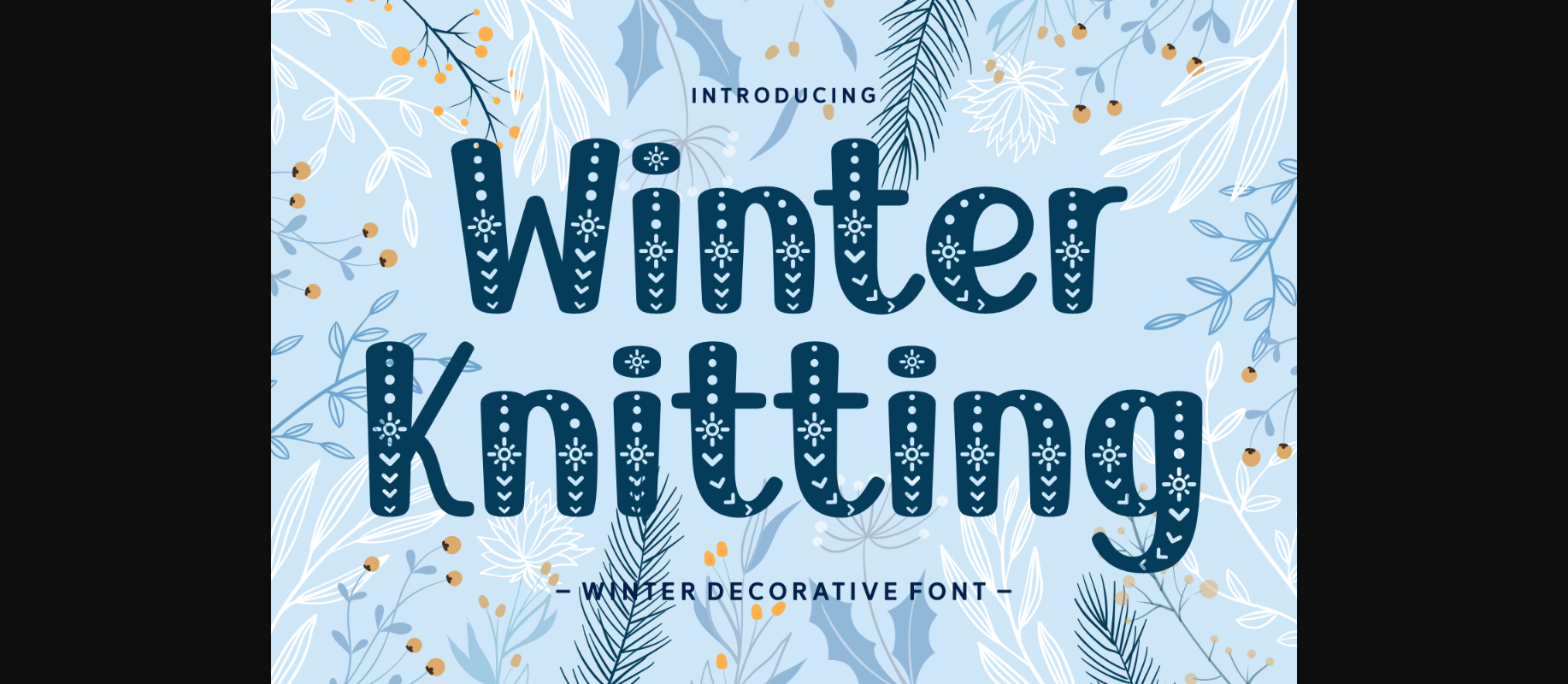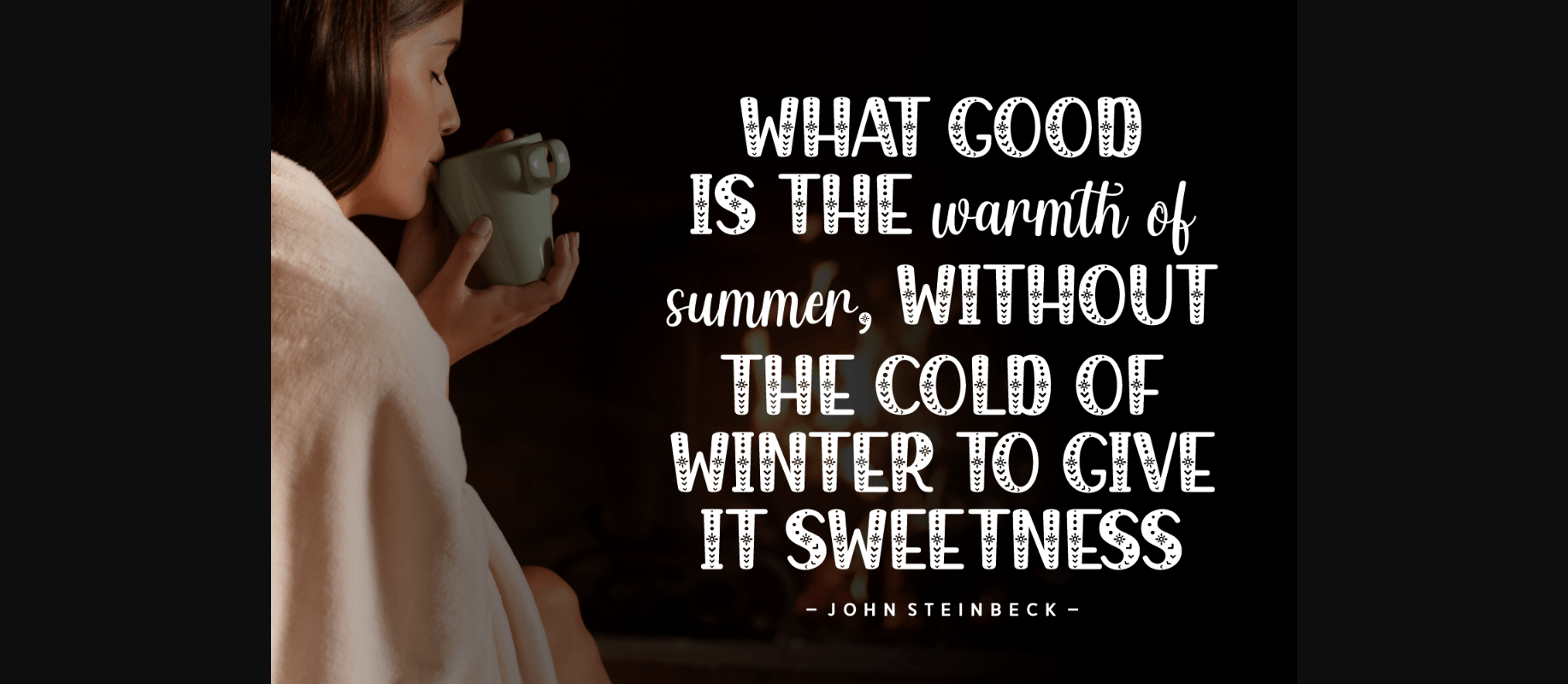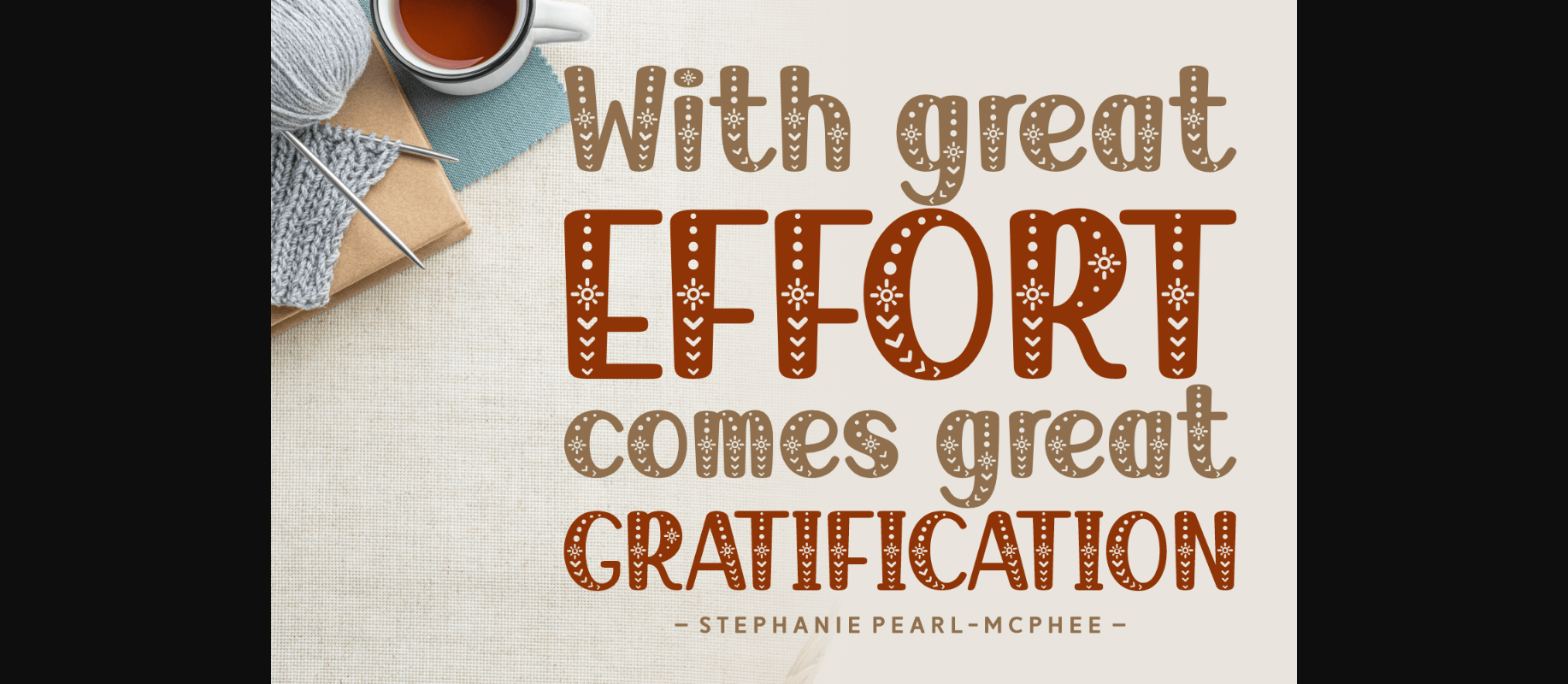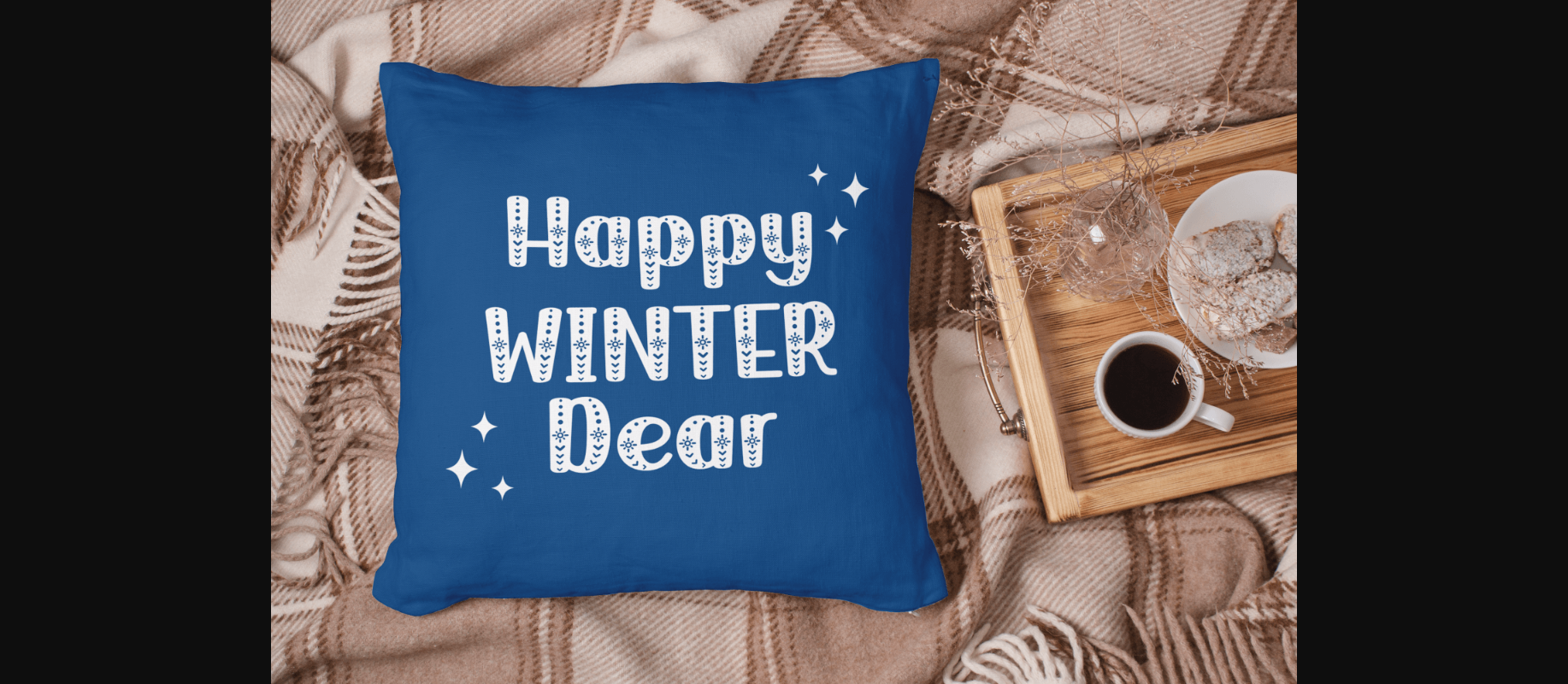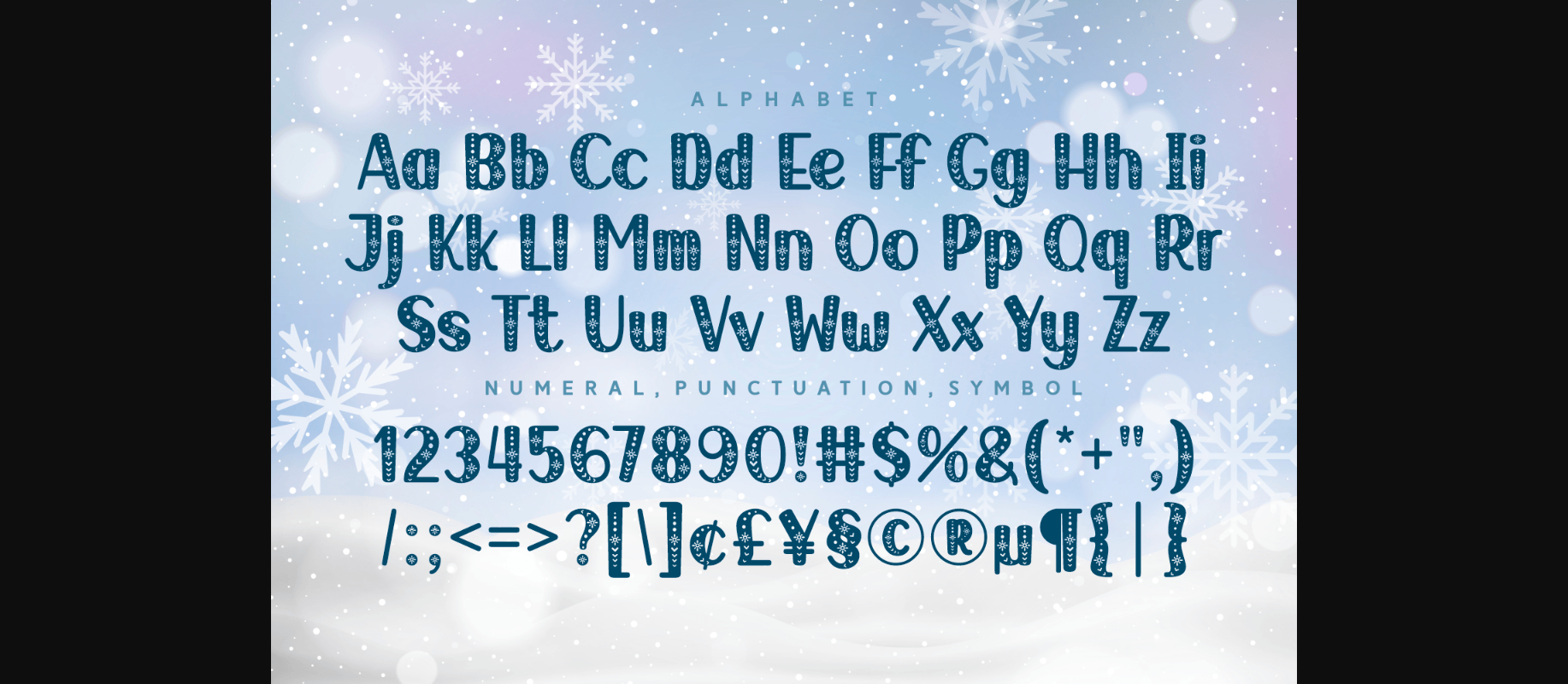
About Winter Knitting Font
Winter Knitting is a charming decorative typeface with a winter theme. It can be a wonderful addition to your holiday project or winter-themed project. You can use it for invitations, thank you cards, quotes, greeting cards, logos, business cards, and many more!